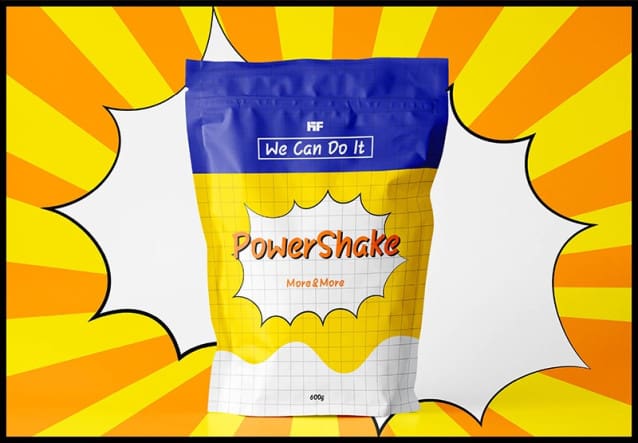
HF Comic Font
HF Comic Font is a chunky, comic, and cartoon display font. With its neat and joyful personality, this font will enhance any project you wish to create!